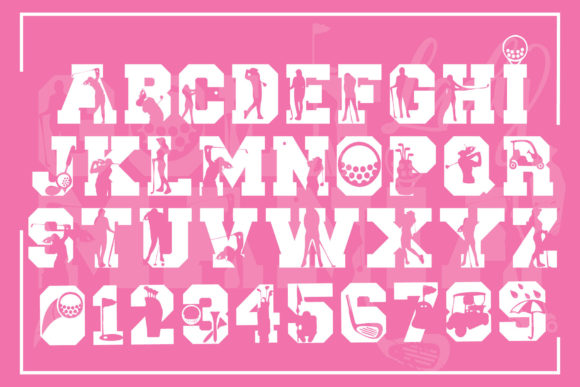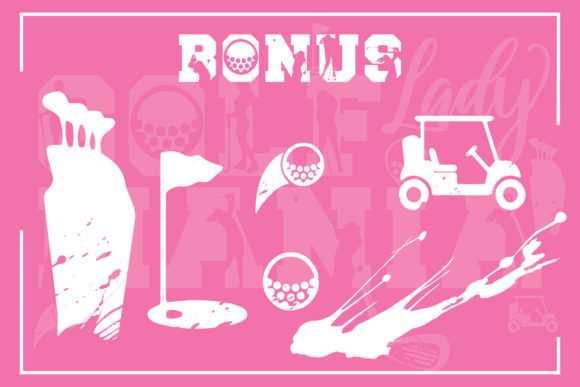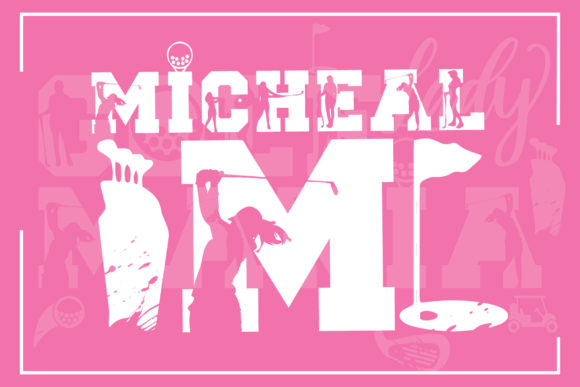
Introduction to Golf Mania Lady Font
Golf Mania Lady is a cool and bold display font, created for lovers of golf.
It will look stunning on any poster flyer or print Use this font for your designs and explore its endless possibilities.
Key Features of Golf Mania Lady Font
Why Choose Golf Mania Lady Font?